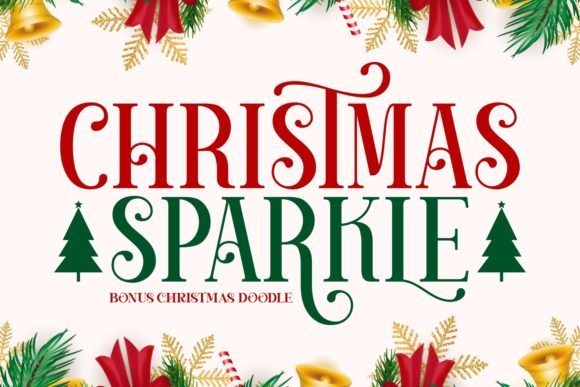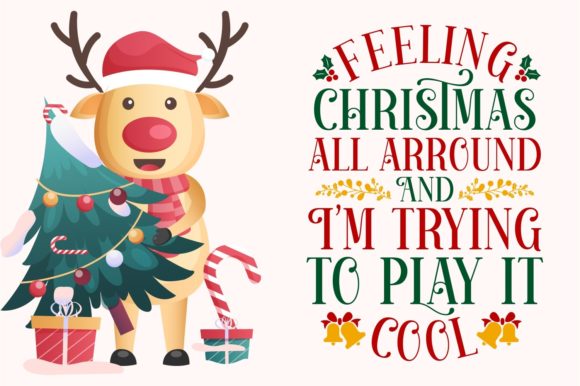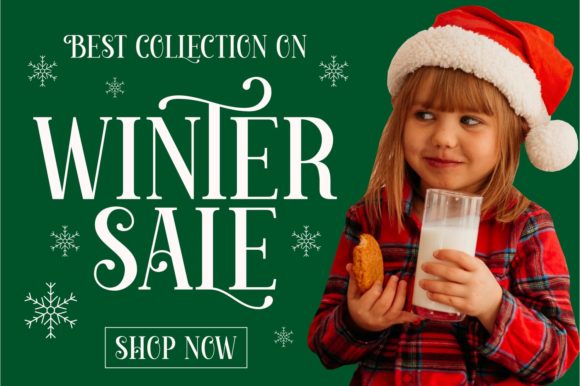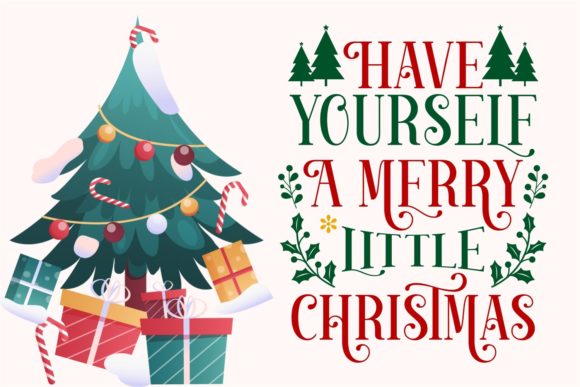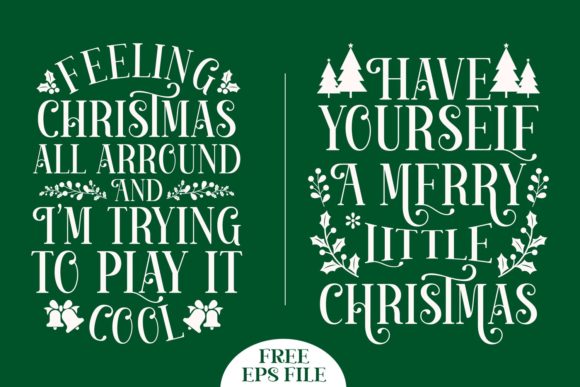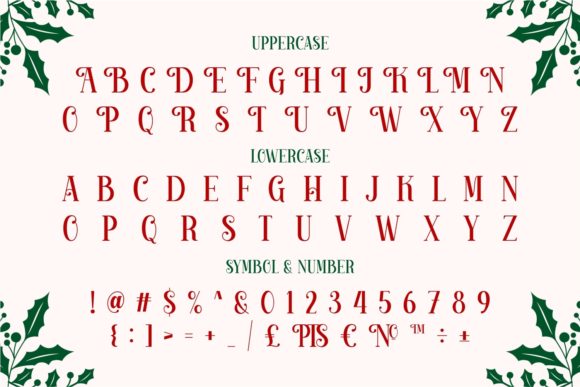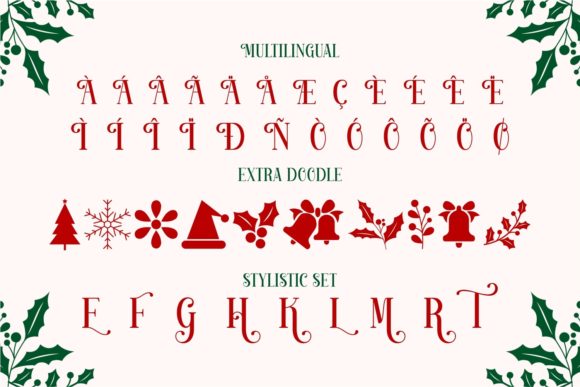
Deck the Halls with Style: Unleashing the Magic of Christmas Sparkle Font
It’s that time of the year when creativity knows no bounds, and the world is bathed in a warm, festive glow. You’re rummaging through your design assets, searching for the perfect font to add that extra sparkle to your holiday projects. And then, it hits you – the Christmas Sparkle Font, a stunning serif font that’s sure to make your designs shine.
This elegant font is more than just a pretty face; it’s a valuable addition to any designer’s toolkit. With its PUA encoding, you can access all the glyphs and swashes with ease, giving you endless possibilities to experiment and create unique designs. Whether you’re working on a Christmas card, a holiday advertisement, or a festive social media post, the Christmas Sparkle Font is the perfect companion to bring your vision to life.
Christmas Sparkle Font Key Features
- Font Family: A set of 3 unique font styles – Sparkle, Glitter, and Icicle – designed to evoke the magic of Christmas.
- Unique Characteristics: Each font style features intricate, hand-drawn designs with sparkles, glitter, and icicle elements, adding a touch of whimsy and festivity to any design.
Designer Review: Christmas Sparkle Font
Overall, I’m a bit torn with this font, but let me break it down for you.
- Unique and playful design – it’s perfect for adding a touch of whimsy to your holiday designs.
- Well-suited for digital and print media, including social media graphics, posters, and cards.
- The sparkly elements add a nice visual interest to the font, making it stand out from more traditional serif or sans-serif fonts.
- May be too over-the-top for some designs, potentially overwhelming the content.
- Limited font sizes and styles, which may limit its versatility in certain projects.
- Some characters may not display correctly in certain fonts or on lower-resolution displays.
In conclusion, I think Christmas Sparkle Font is a fun and creative option for holiday designs, but it may not be the best choice for more formal or minimalist projects. With some careful planning and consideration, it can be a great addition to your design toolkit.
The Christmas Sparkle font is perfect for creating festive and fun designs for:
- Christmas cards and invitations
- Holiday party decorations and signage
- Gift tags and wrapping paper
- Seasonal social media graphics and advertisements
To get the most out of the Christmas Sparkle font, try the following:
- Pair it with bold, bright colors to create a festive look.
- Use it in combination with other festive fonts for a fun and playful design